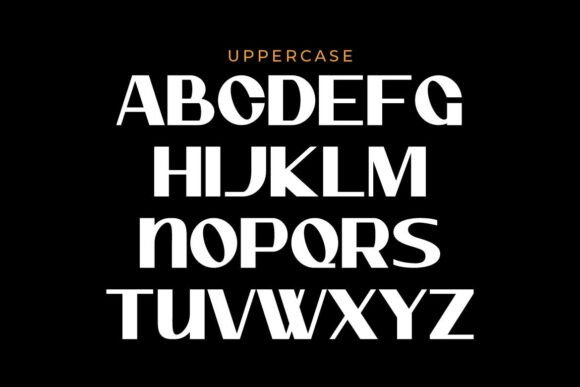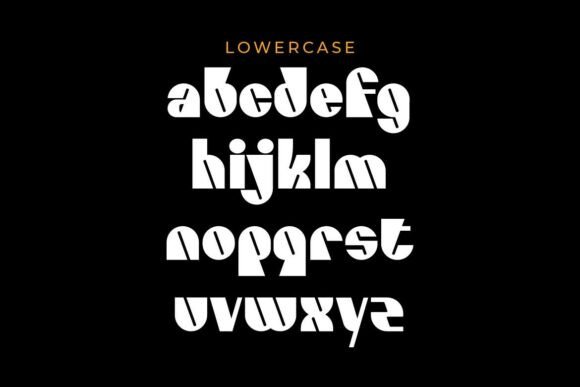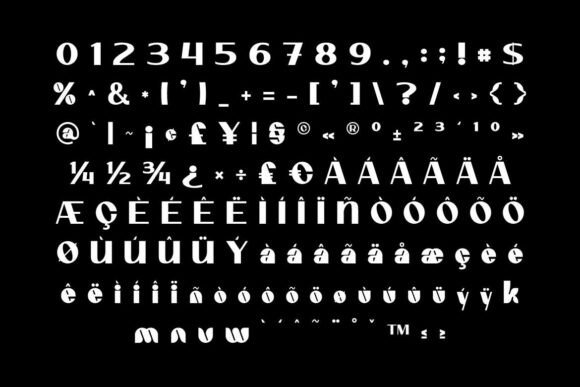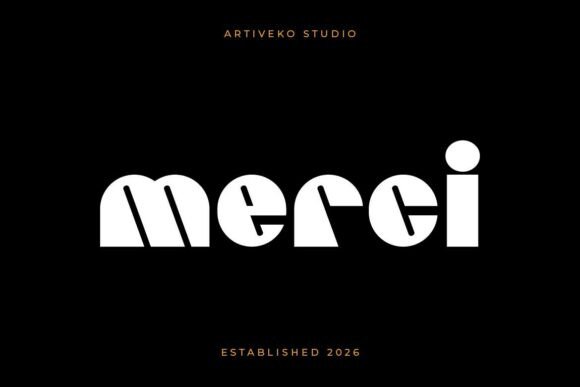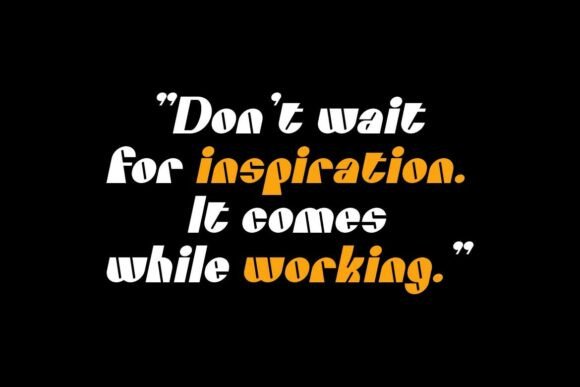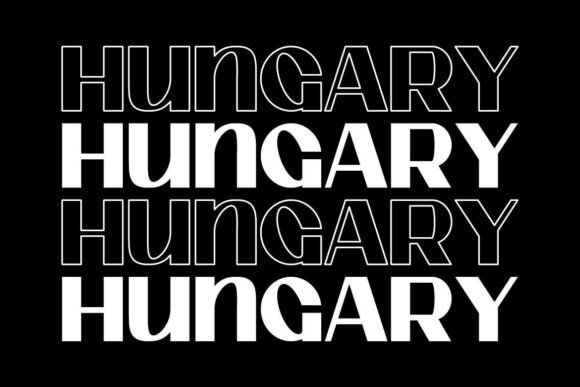
Introduction to Kloe Font
Kloe is a bold display typeface designed to create strong, stylish, and modern visual impact.
With solid letterforms, clean lines, and balanced proportions, Kloe delivers a confident presence that stands out in any design .
Key Features of Kloe Font